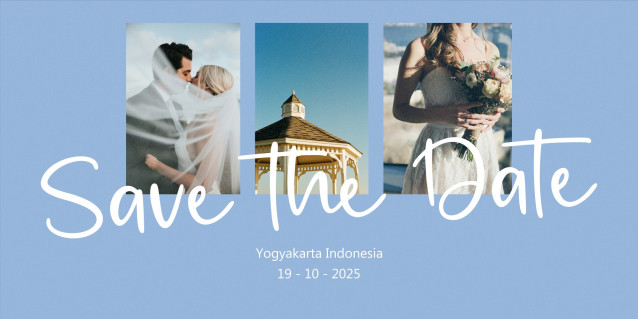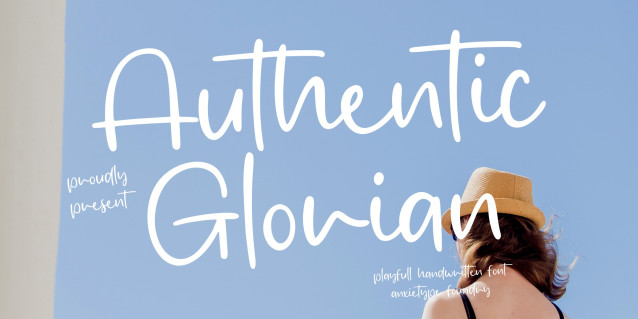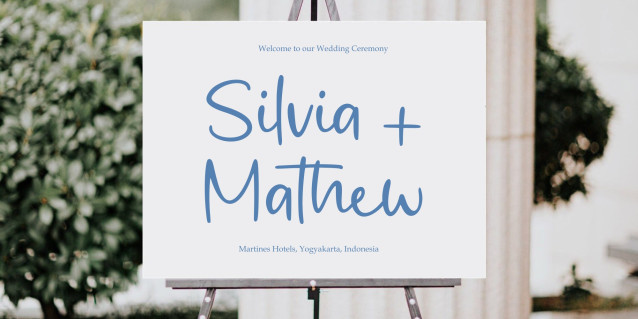
Authentic Glorian Script Font
Authentic Glorian Script Font the monoline handscript font, expertly curated by Anxietype Foundry. Whether it’s enriching your product packaging, lending an edge to your branding projects, or adding a dash of elegance to your magazine or social media profiles, Authetic Glorian never disappoints. Not just that, it makes an excellent choice for wedding details or powerfully expressing words against a background. Indulge in the unique charm of Authetic Glorian and let your designs narrate a story.